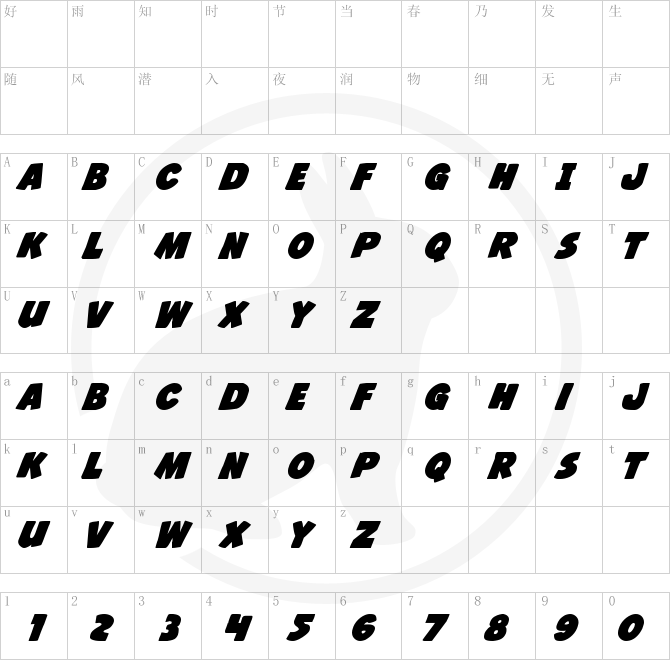
• Font Name:Jack's Candlestick Bold
• Full Name:Jack's Candlestick Bold
Jack-s-Candlestick-Bold.ttf is a very beautiful artistic font, Jack-s-Candlestick-Bold.ttf is widely used in the design and printing of various books and pictures,Jack-s-Candlestick-Bold.ttf has a strong visual impact,Jack-s-Candlestick-Bold.ttf is a commonly used font in newspapers, magazines and books, and is used in posters, e-commerce Poster design, store design, logo design, font design and other fields.Jack-s-Candlestick-Bold.